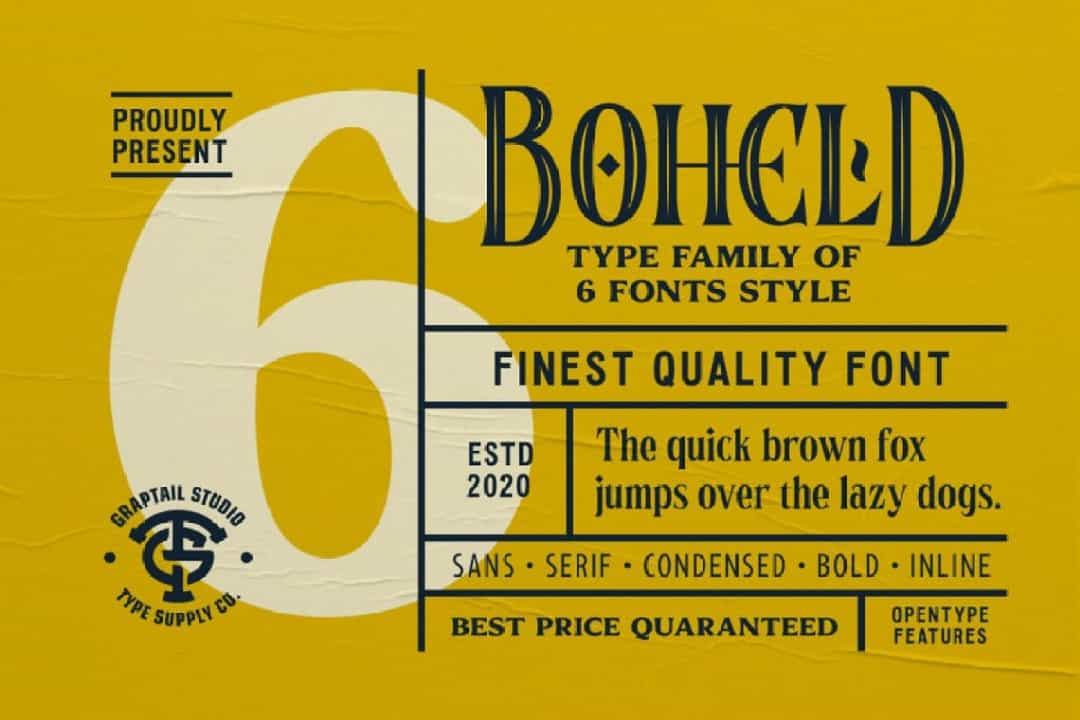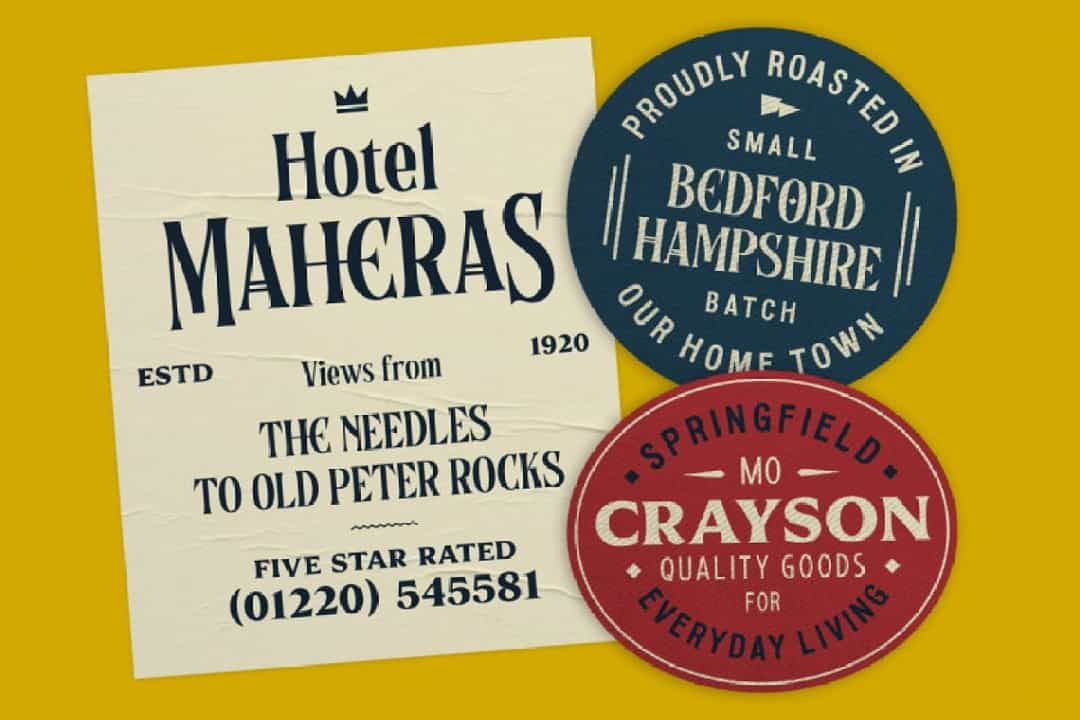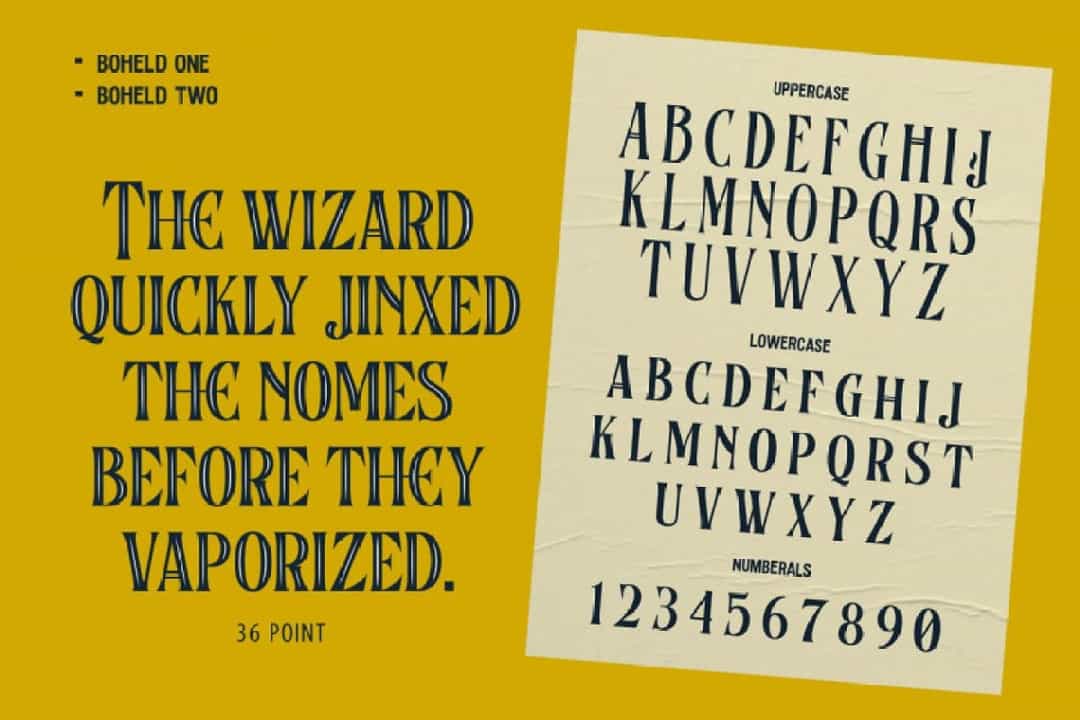
Boheld Fonts Collection comprises of 6 different forms of fonts; Sans, Serif, Bold Condensed, and Inline. The ideas are borrowed from the traditional labels, posters, tickets, and many such items. Such a treasure when one is able to get a hold of it. The following are the advantages you will get after starting to create work using the Boheld fonts collection. What are you wasting time on the most affordable value and the highest quality that we have with the guarantee of satisfaction.